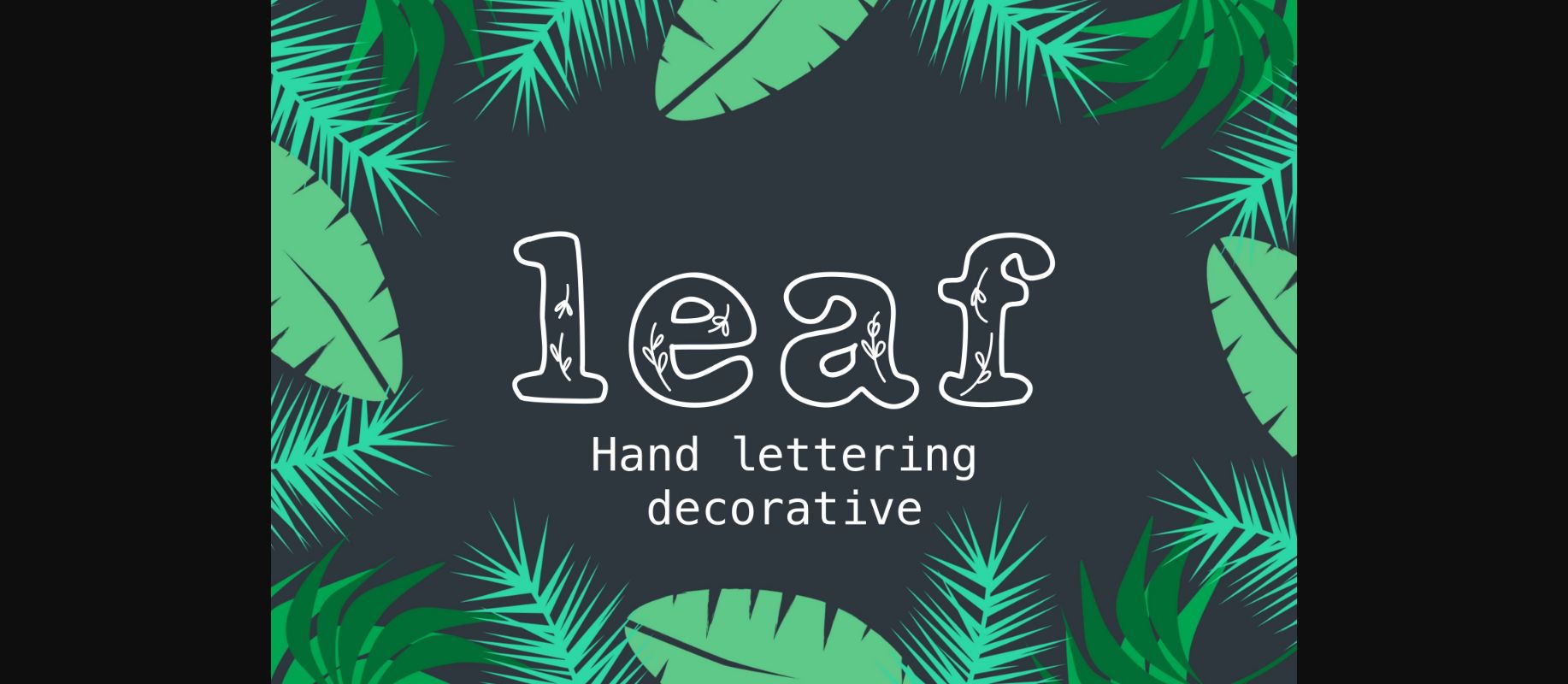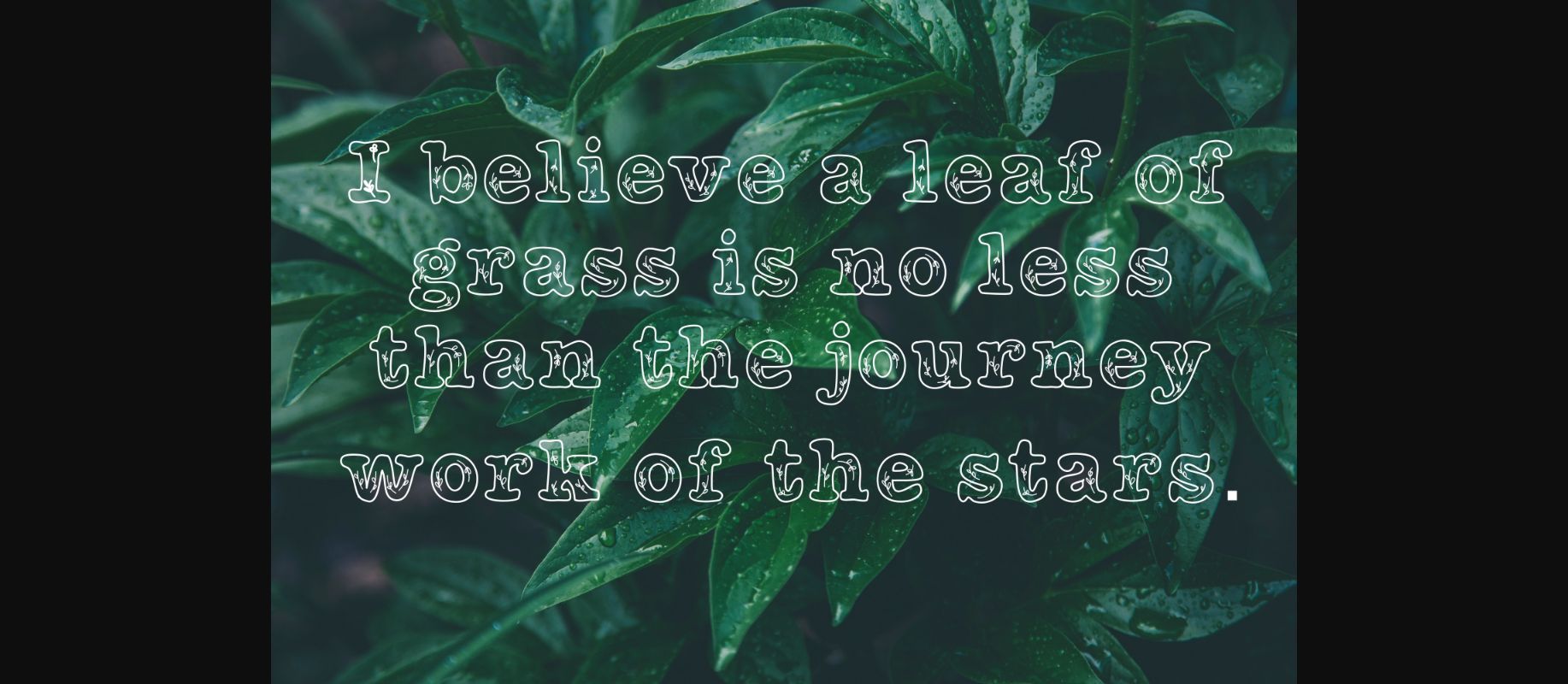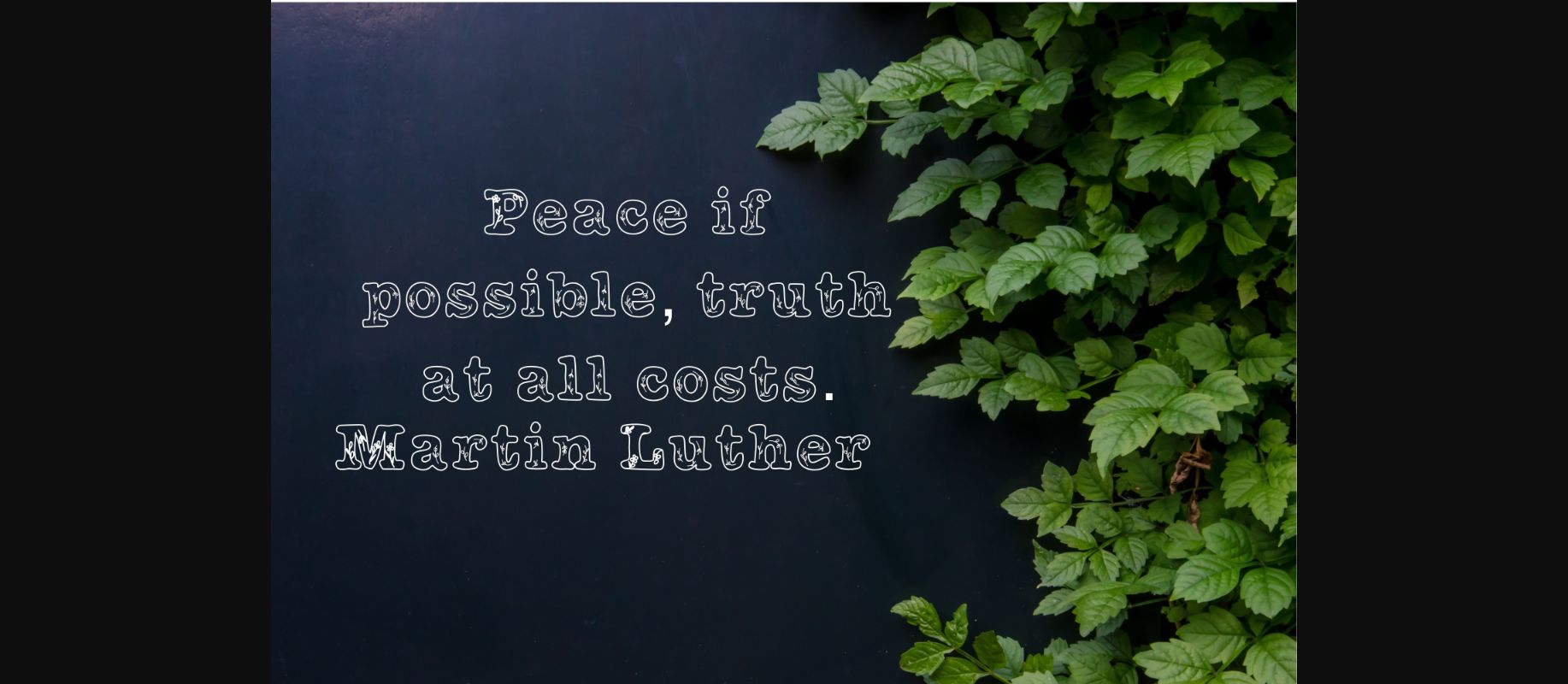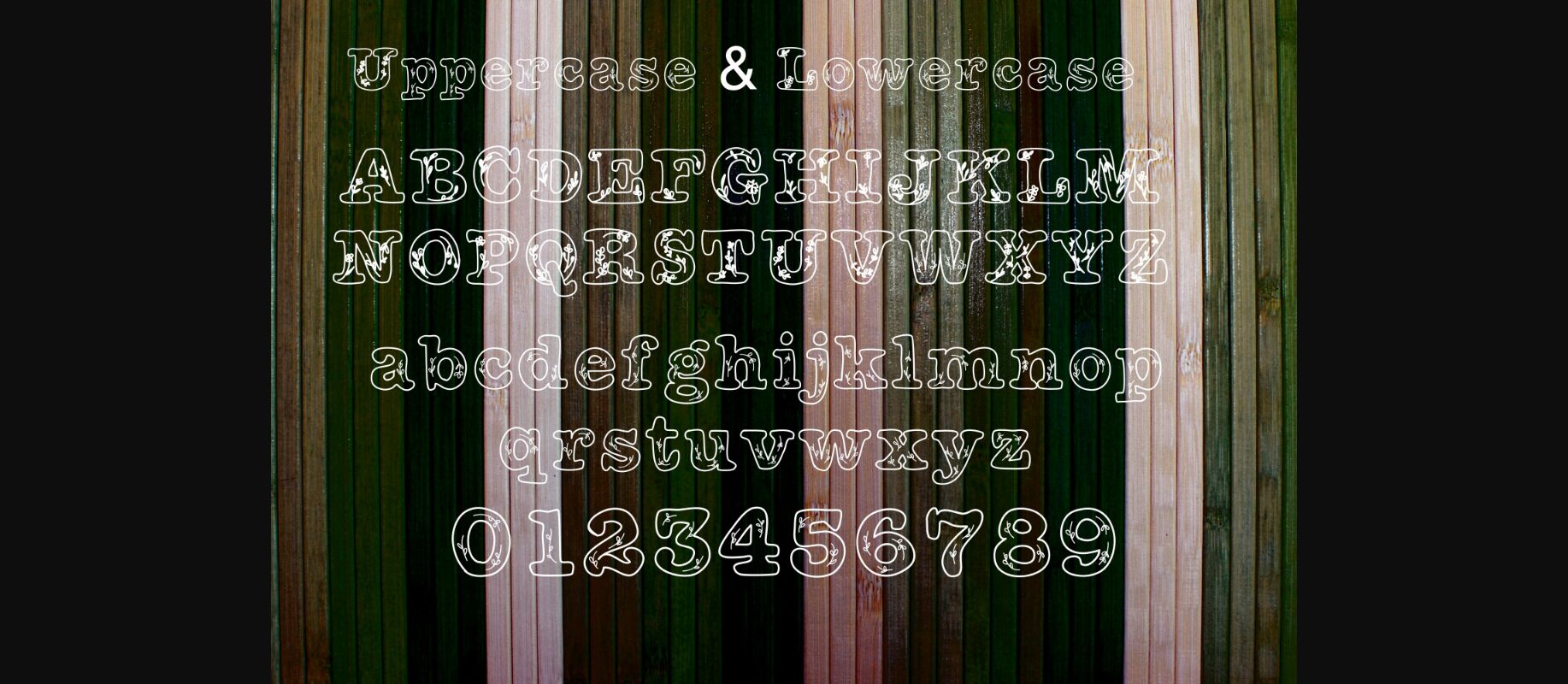
About Leaf Font
Leaf is a thick lettered and interestingly designed decorative font. This font is neatly crafted and highly detailed. Whatever the topic, this font will be a wonderful asset to your font library, as it has the potential to enhance any creation